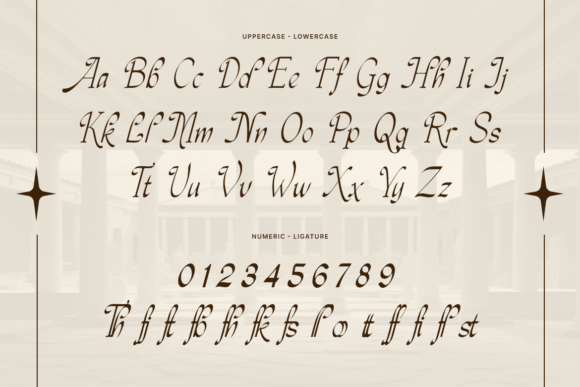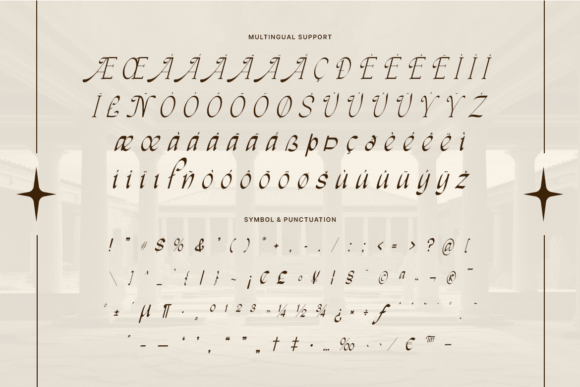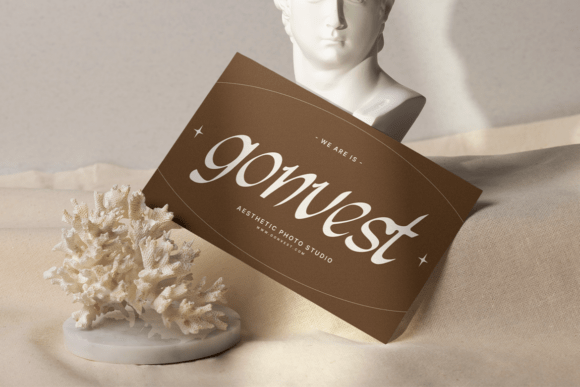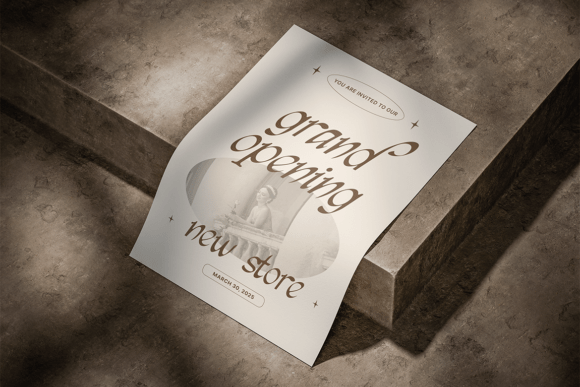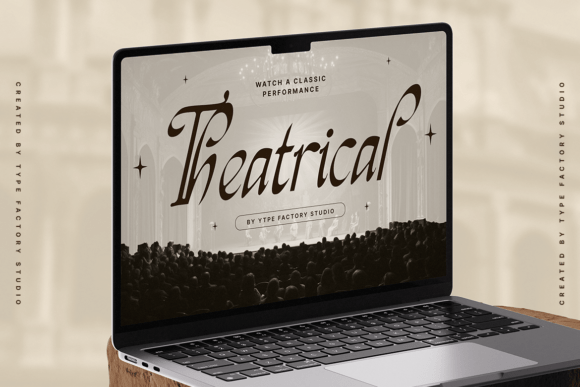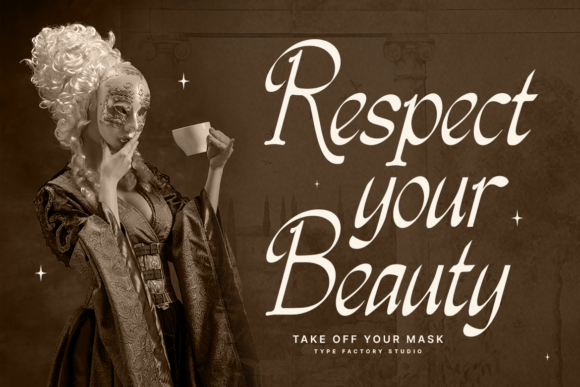
The Perfect Blend of Elegance and Movement
As a designer, there’s nothing quite like the thrill of bringing a concept to life on the page. The rush of creativity, the satisfaction of seeing your vision take shape, and the knowledge that you’re about to create something truly special – it’s a feeling that never gets old. For those of us who live and breathe typography, there’s one moment that stands out above the rest: the moment when the perfect font comes along and elevates your design to new heights.
That’s exactly what happens when you discover the Ardavan Font – a stunning italic serif typeface that combines the classic elegance of traditional serif fonts with the dynamic movement of a slanted, expressive style. Whether you’re working on editorial layouts, fashion branding, or display headlines, the Ardavan Font is the perfect choice for designers who crave a unique, eye-catching look that’s sure to grab attention.
Ardavan Font Key Features
- Font Style: A modern, elegant script font with a unique blend of Persian and Arabic influences.
- Unique Characteristics: Features a distinctive flowing style, with intricate connections between letters and a sense of movement and elegance.
Ardavan Font Review
As a designer, I was excited to dive into the Ardavan Font and see what it had to offer. Here’s my honest review.
- Unique design: The Ardavan Font has a distinctive, modern aesthetic that sets it apart from more common fonts.
- Good for titles: The font’s bold lines and unique shapes make it perfect for titles and headings.
- Customizable: The font comes in a range of weights and styles, making it easy to customize to suit your needs.
- Readability: While the font is visually striking, it can be difficult to read at smaller font sizes.
- Limited font sizes: The font doesn’t come in as many font sizes as some other fonts, which can limit its versatility.
- Not ideal for body text: The font’s unique design can make it difficult to read large blocks of text.
The Ardavan Font is a great choice for designers looking to add a touch of modernity to their projects. While it has some limitations, its unique design and customizable options make it a valuable addition to any design toolkit. Just be mindful of its limitations and use it sparingly to avoid overwhelming your audience.
The Ardavan Font is ideal for creative projects, such as:
– Infographics and data visualizations
– Magazine and book covers
– Social media graphics and ads